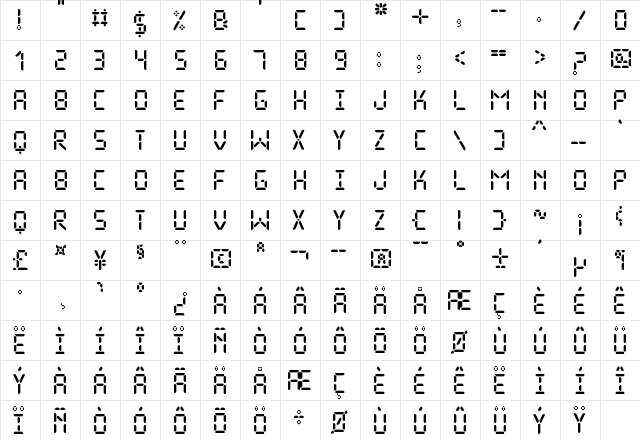
The Display St Regular
Design Context for The Display St Typeface
The Display St brings ornamental detail and strong personality to headlines and identities, where visual impact matters more than quiet functionality.
Font Pairing: Pair with a clean neutral sans-serif for body copy to let The Display St's character lead without overwhelming the composition.
Pro Tip: Use The Display St exclusively at display sizes — it was designed to be seen, not read at length. Let a neutral companion handle body copy.